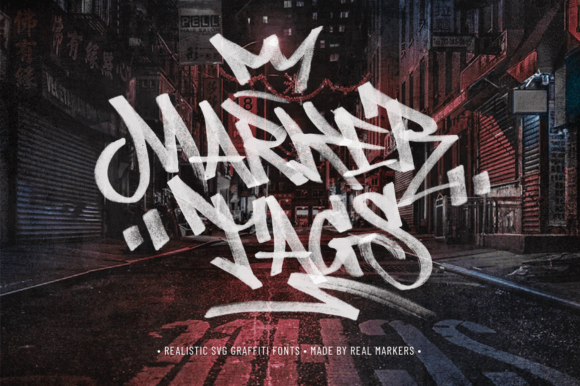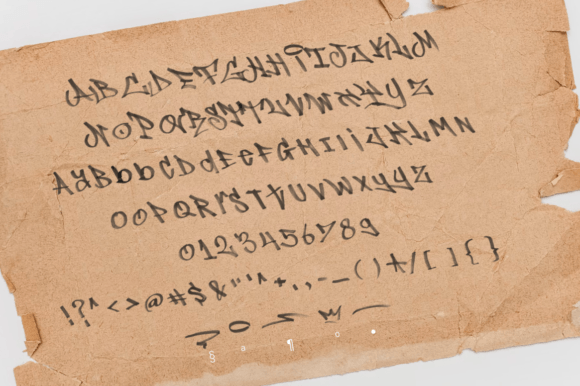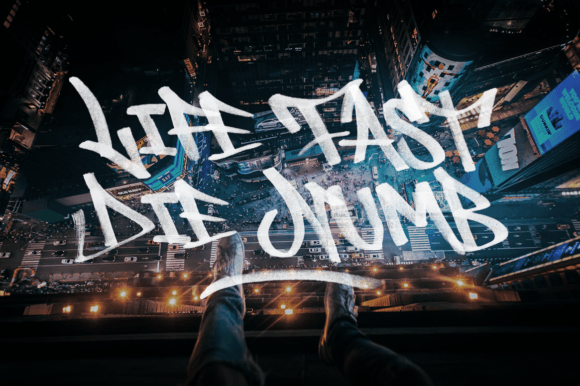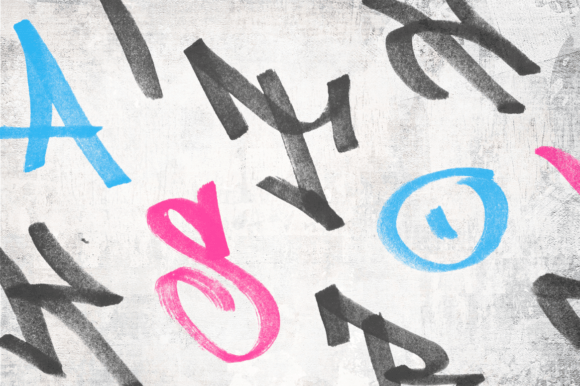
About the Marker Tags Font
Get ready to be inspired by Marker Tags Font, a fresh and dynamic typeface for modern creators. Created with real markers, the images were scanned to select the best letters for the fonts. This font is ideal for those needing a realistic graffiti or grunge style, as it blends seamlessly with real elements when using the SVG fonts.
As these are realistic graffiti fonts, adjustments to kerning and spacing may be necessary.
Marker Tags Font is best suited for headlines, short impactful text on posters, and branding elements requiring a strong, rebellious aesthetic. Its hand-drawn nature makes it ideal for projects conveying authenticity or a street-style vibe. Avoid using it for body copy or lengthy text; the irregular letterforms hinder readability in large blocks.
The font’s core personality is bold and rebellious, with a touch of raw energy. It works well for brands targeting a younger demographic, streetwear labels, music projects, or events with a gritty feel. Consider pairing it with a clean sans-serif like Open Sans for contrast or a geometric sans-serif for a more modern feel.
For a softer contrast, a neutral serif like Lora could be used for supporting text. Avoid pairings with overly decorative or script fonts, as this might clash with the Marker Tags Font’s raw, authentic style.